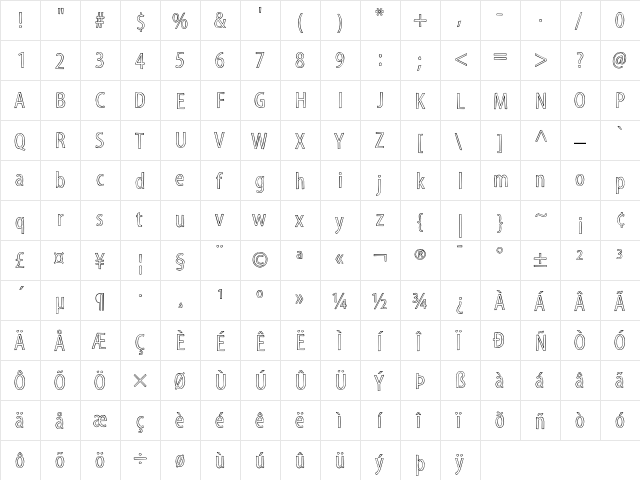
Myriad Sketch
Design Context for Myriad Typeface
Myriad offers clean, dependable letterforms without strong stylistic allegiance, making it a practical choice for designers who need flexibility.